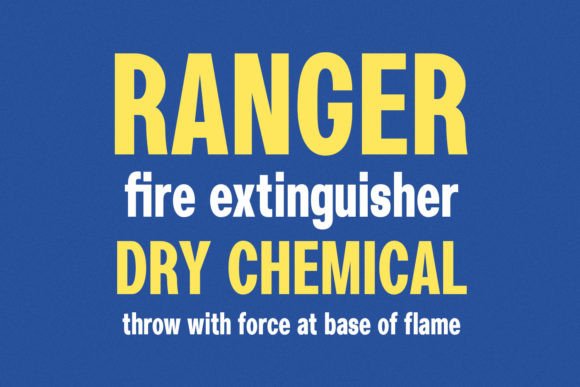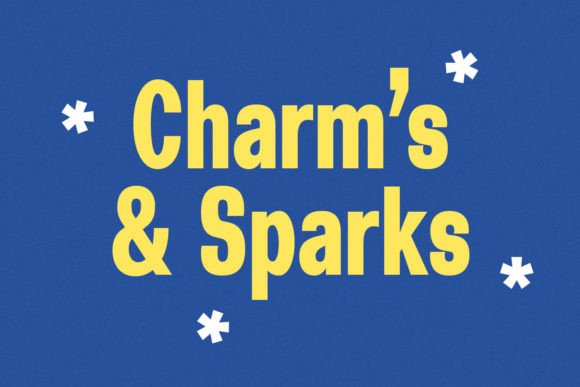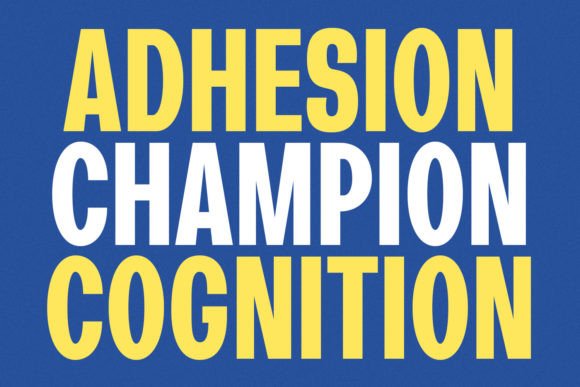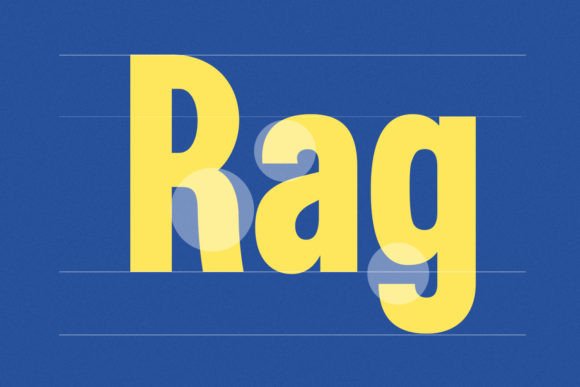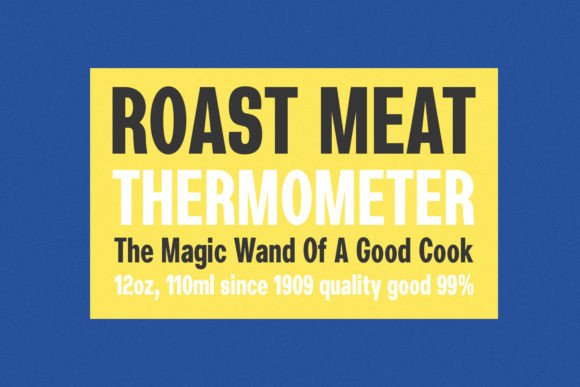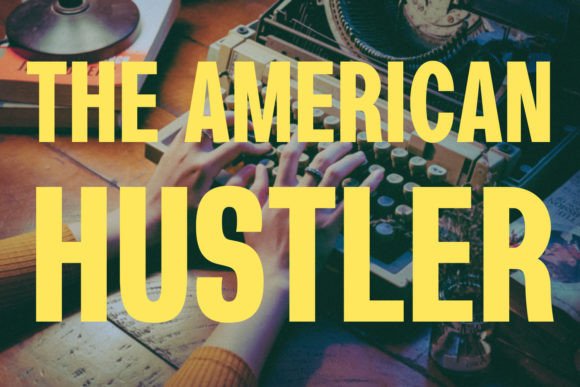
The Retro Charm of Granko Font: A Designer’s Delight
I’ll never forget the time I was working on a vintage-themed project for a client, and I just couldn’t find the right font to capture that nostalgic feel. I scoured the internet, tried out countless fonts, but nothing seemed quite right. That was until I stumbled upon Granko Font. With its retro-inspired, condensed sans-serif design, it was love at first sight! In this article, I’ll share my experience with Granko Font, its features, and how to make the most of it in your designs.
An Honest Review of Granko Font
- ✨ Retro charm: Granko Font has a unique, nostalgic feel that’s perfect for vintage-themed projects or adding a touch of old-school charm to your designs.
- ✅ Condensed structure: Its condensed design makes it ideal for headlines, titles, and logos where space is limited.
- 💪 Bold lines: The bold lines of Granko Font give it a strong, confident look that’s sure to grab attention.
- 🎨 Versatility: Despite its retro inspiration, Granko Font is surprisingly versatile and can be used in a variety of design contexts.
While Granko Font is an excellent choice for many design projects, there are a few things to keep in mind:
- 🤔 Legibility at small sizes: Due to its condensed design, Granko Font can be a bit tricky to read at very small sizes. It’s best used at larger sizes where its bold lines can shine.
- ⚠️ Overuse: As with any font, be careful not to overuse Granko Font. Its bold design can quickly become overwhelming if used excessively.
A Practical Guide to Using Granko Font
The Backstory of Granko Font
Granko Font was designed by a team of creatives who wanted to capture the essence of retro design. Inspired by classic fonts from the 1950s and 60s, they created a font that’s both nostalgic and modern. With its condensed structure and bold lines, Granko Font is perfect for designers who want to add a touch of old-school charm to their work.
Q: What is Granko Font?
A: Granko Font is a retro-inspired, condensed sans-serif font designed for headlines, titles, and logos.
Q: Is Granko Font suitable for body text?
A: While Granko Font can be used for body text, its condensed design and bold lines make it more suitable for headlines and titles.